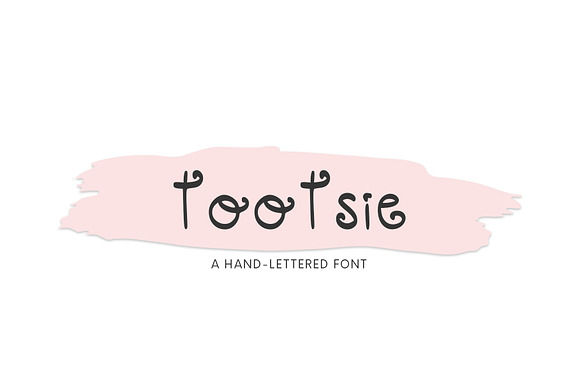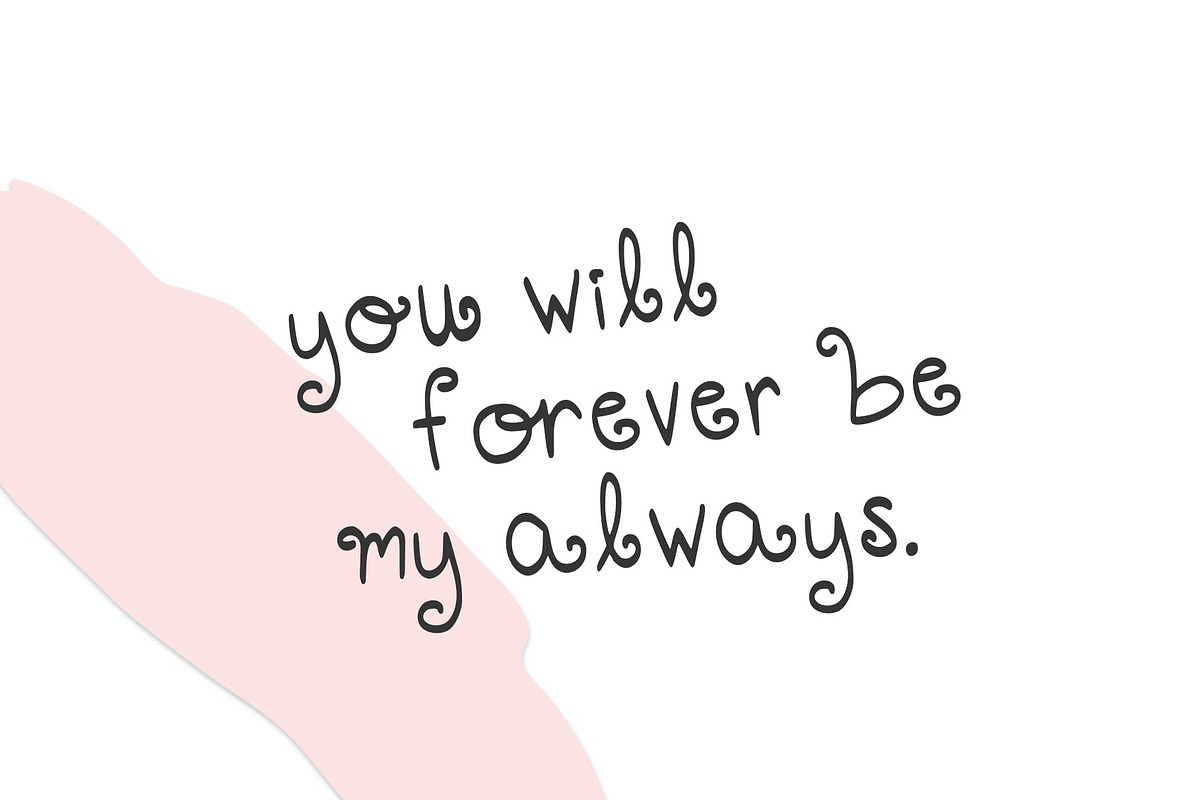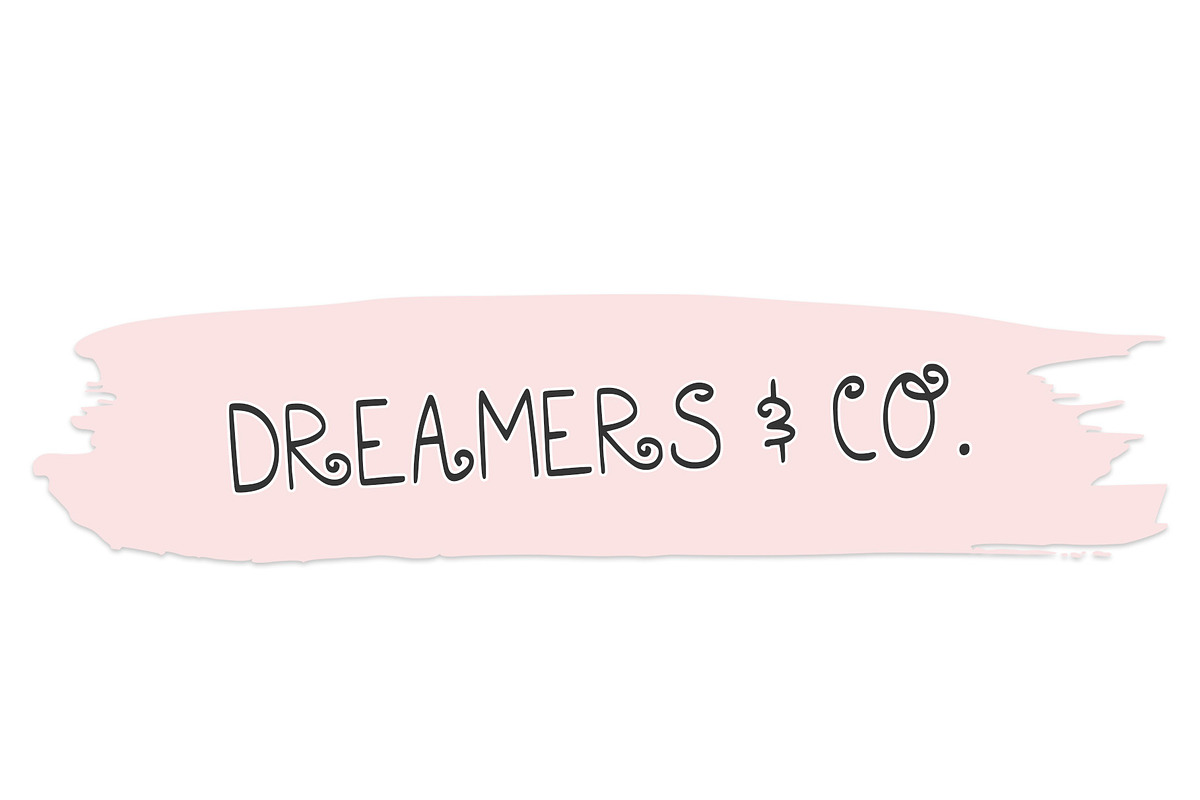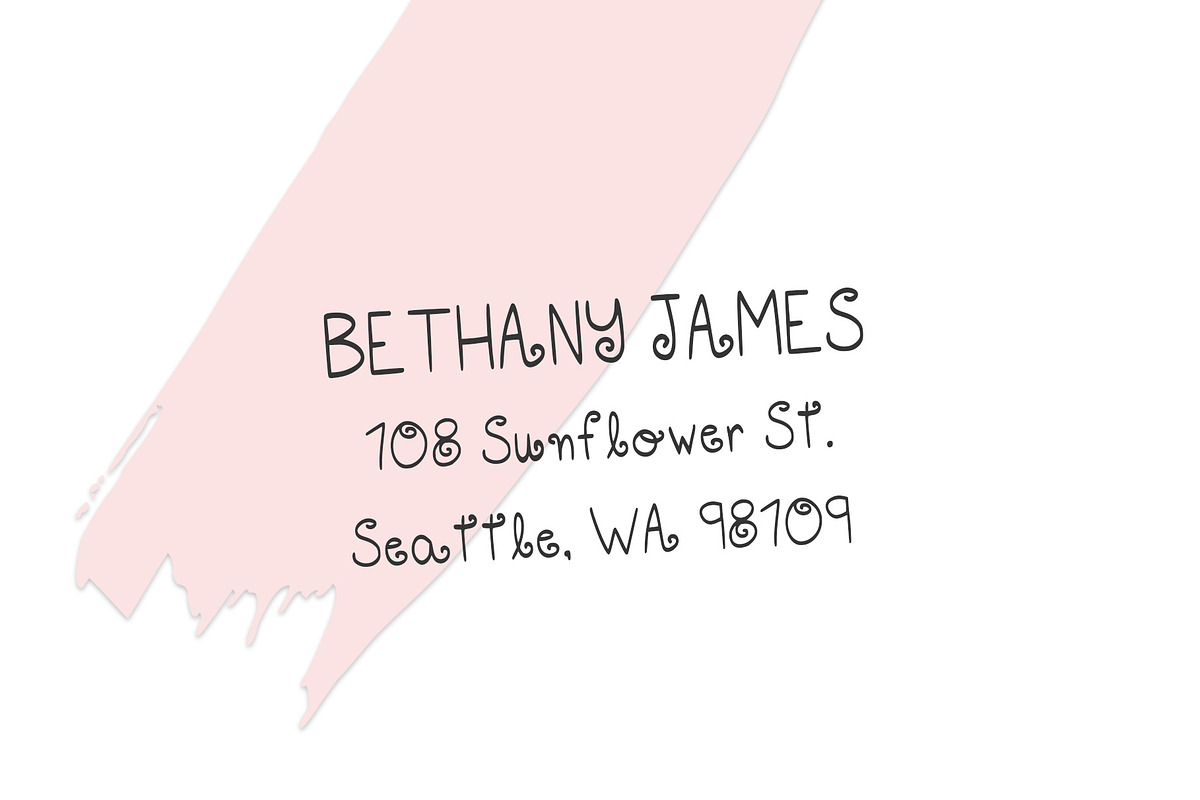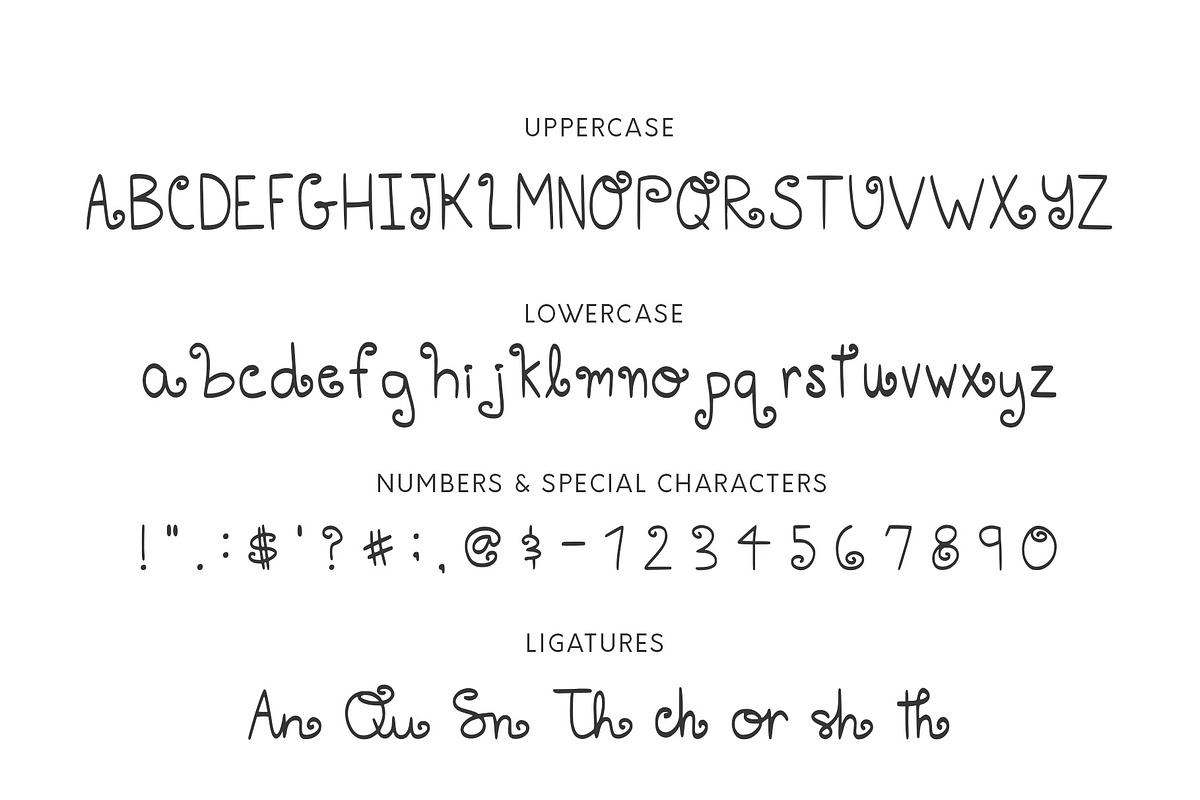
Tootsie, A Cute Hand-Lettered Font
We present you with Tootsie! A darling typeface with curls for days. It's perfect for all sorts of graphic design projects. Including web design, branding, stationery design, logos, banners and more!